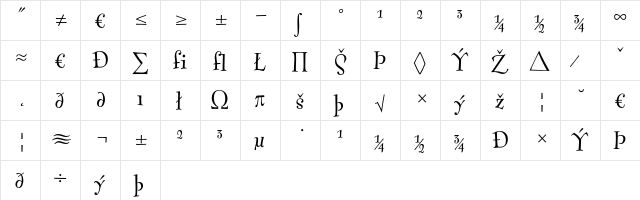
FontesqueText-RegularExpert Regular
Design Context for FontesqueText-RegularExpert Typeface
FontesqueText-RegularExpert offers clean, dependable letterforms without strong stylistic allegiance, making it a practical choice for designers who need flexibility.